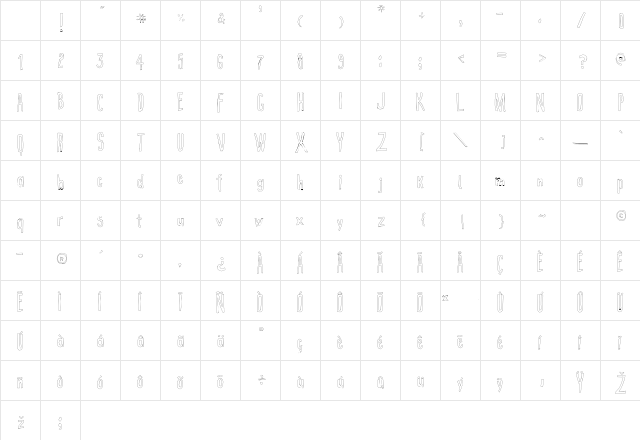
Complete True 2Dt was created using FontCreator 6.5 from High-Logic.com Regular glyph index. Displaying only characters natively supported by True 2Dt was created using FontCreator 6.5 from High-Logic.com Regular font.
True 2Dt was created using FontCreator 6.5 from High-Logic.com is a composed and adaptable typeface that performs quietly and consistently across a wide range of design contexts.